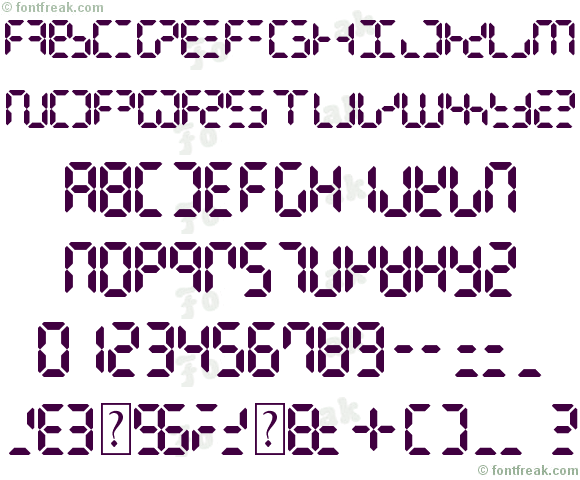
Digital Dismay
About Digital Dismay
Digital Dismay by Andrew McCluskey is a unique display typeface that captures the essence of digital aesthetics with a slightly disconcerting twist. Released in 2014, this freeware font stands out with its pixelated, almost glitch-like appearance, reminiscent of early computer graphics. The font features a medium stroke weight with minimal contrast, providing a uniformity that enhances its digital vibe. The characters are spaced evenly, which contributes to readability while maintaining a distinctly modern look.
Digital Dismay is perfect for a variety of creative projects. It works exceptionally well in video game interfaces, where a tech-savvy or retro feel is essential. Additionally, the font can be utilized in promotional materials for tech events or conventions, where capturing the audience’s attention with a unique style is crucial. For graphic designers looking to evoke a sense of nostalgia or a futuristic ambiance, this font is an ideal choice for album covers, especially in electronic music genres. Furthermore, Digital Dismay can also enhance website headers, providing a striking visual element that draws visitors in.
The target audience for this typeface includes graphic designers, small business owners, content creators, and anyone looking to make a statement with their visual identity. Its distinctive style appeals to those who appreciate digital art and retro themes, making it a versatile addition to any designer's toolkit.
What sets the Digital Dismay font apart is its ability to blend a sense of disarray with clean, digital lines, creating a captivating visual experience. This unique juxtaposition makes it not just a font, but a tool for conveying emotion and atmosphere in design. For those interested, a Digital Dismay font free download is available, allowing you to incorporate this striking typeface into your projects effortlessly.